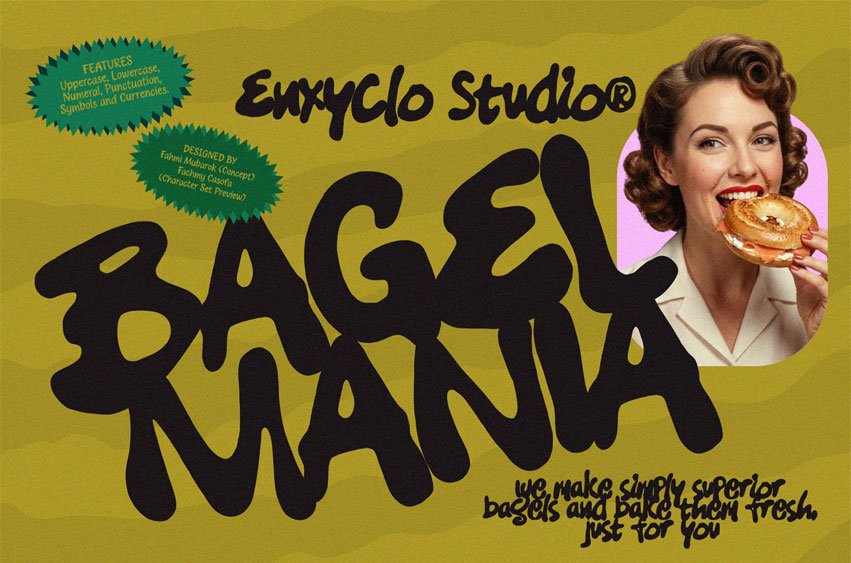
Bagel Mania Font is a deliciously charming food font inspired by bagel and the delicious bakery. With soft, rounded letterforms and a friendly handcrafted feel, this font captures the joy of freshly baked bread, croissants, sourdough, and baguettes, as well as the fun energy of pizza, sushi, donuts, coffee, milkshakes, and cookies moments.
Designed to look warm, juicy, and irresistibly inviting, Bagel Mania brings out that hungry-at-first-sight feeling. Its playful style makes it perfect for food branding that wants to feel comforting, cheerful, and approachable; just like the smell of fresh dough coming out of the oven.
Whether you’re creating menus, packaging, café logos, or mouth-watering posters, Bagel Mania adds flavor, warmth, and personality to every design.
PERFECT FOR
- Bakery and café branding
- Food and beverage logos
- Restaurant menus and signage
- Coffee shop and donut shop designs
- Food packaging and labels
- Social media food promotions
- Kitchen-themed posters and prints
- Culinary blogs and recipe graphics